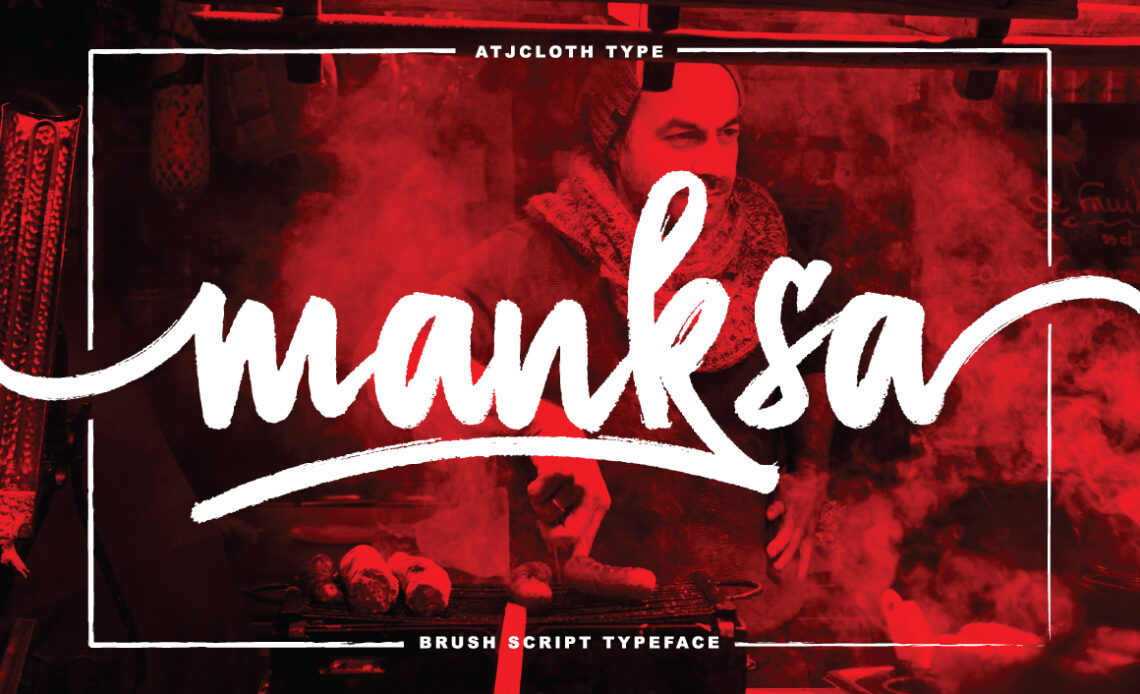
Behold, Manksa Font - A Textured Brushstrokes Masterpiece
In the world of digital artistry, where words come alive and stories unfold, Manksa Font emerges as a textured brush font, a true masterpiece that captivates the senses and ignites the imagination. Crafted by the skilled hands of Atjcloth Studio, Manksa is more than just a font; it's an emotive expression, a stroke of genius, and an invitation to create designs that leave a lasting impression.
Discover the Essence of Expression
With Manksa Font, your designs transcend the ordinary and embrace the extraordinary. It's a font that whispers of authenticity and oozes with personality, perfectly suited for projects that demand a touch of the unexpected, a hint of the avant-garde. Whether you're a seasoned graphic designer or a budding creative, Manksa becomes your artistic muse, inspiring you to break free from the mundane and explore the boundless realm of expression.
A Symphony of Texture and Grace
Manksa Font is not merely a collection of characters; it's a symphony of textures, a dance of brushstrokes, a harmonious blend of grit and elegance. Each letter, meticulously crafted, carries the weight of emotion and the lightness of grace, intertwining to create a visual masterpiece that captivates the eye and stirs the soul. With Manksa, your designs become a testament to your artistic prowess, a symphony of visual delight that resonates with your audience.
The Power of Connectivity
Manksa Font understands the power of connection. It's a font that speaks to the heart, reaching out to your audience with an emotive touch. Its characters, adorned with alternate letters, numbers, punctuation, and ligatures, form a cohesive language that transcends cultural boundaries and speaks directly to the human spirit. With Manksa, your designs become a bridge between cultures, a testament to the universal power of storytelling.
A Legacy of Excellence
Atjcloth Studio, the creative force behind Manksa Font, is renowned for their unwavering commitment to excellence. Each font they release is a testament to their passion for typography and their dedication to crafting tools that empower designers to push the boundaries of creativity. With Manksa, they've surpassed expectations once again, delivering a font that's both timeless and cutting-edge, a true gem in the digital artist's toolkit.
Unlock Your Creative Potential